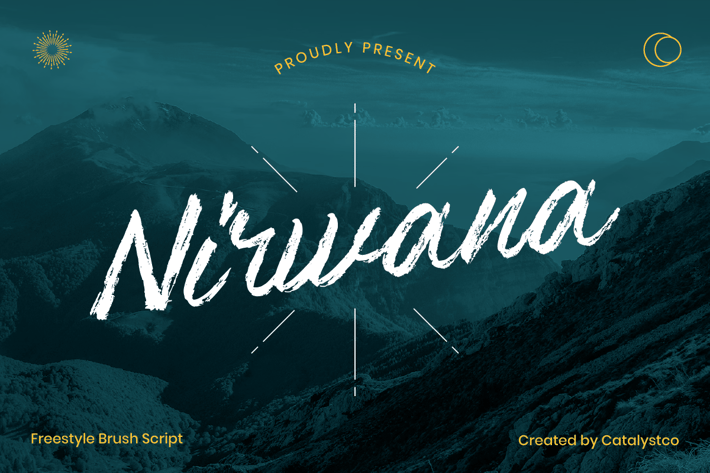
Nirwana Freestyle Brush Script Font
Nirwana Freestyle Brush Script Font is a textured freestyle brush script font with expressive strokes and a bold hand-painted feel. Its rough edges, natural motion, and dynamic flow create an authentic handcrafted look suitable for adventurous branding, poster titles, outdoor themes, and artistic visual compositions. Designed for designers who want strong character and brush energy, Nirwana offers uppercase, lowercase, punctuation, and numbers in OTF, TTF, and WOFF formats.
Relevance and Use Cases is perfect for poster titles, outdoor and adventure branding, bold merchandise designs, artistic editorial layouts, social media graphics, expressive quotes, event promotions, and visual identities that require high-energy brush textures. Suitable for poster design, outdoor branding, adventure themes, music artwork, bold title graphics, creative advertising, social media visuals, handmade lettering projects, and artistic display compositions.
Ligatures & Alternate
Numeral & Punctuations
* Multilingual Support